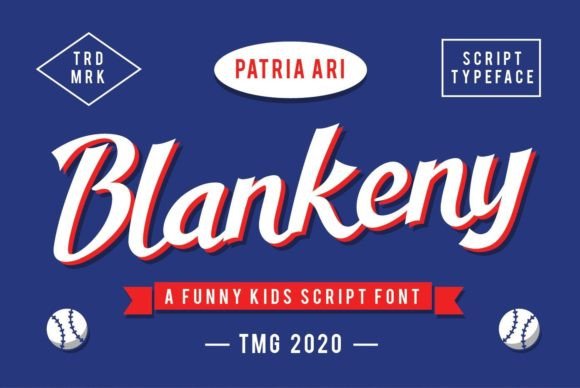
Introducing Blankeny Font: Elevate Your Designs with a Fun and Natural Handwritten Typeface
In the world of typography, fonts play a crucial role in bringing creative ideas to life. A well-chosen font can elevate a design, convey a message, and even evoke emotions. If you’re looking for a font that can add a touch of personality and whimsy to your designs, look no further than Blankeny Font. In this article, we’ll explore the features and benefits of Blankeny, a fun and natural handwritten font that’s incredibly versatile and perfect for a wide range of design projects.
What is Blankeny Font?
Blankeny Font is a modern, handwritten typeface that’s designed to bring a sense of fun and natural elegance to your designs. With its unique and distinctive character, Blankeny is perfect for creative projects that require a personal touch. Whether you’re working on a branding project, a website, or a marketing campaign, Blankeny Font is sure to make your designs stand out.
Benefits of Using Blankeny Font
So, what makes Blankeny Font so special? Here are just a few benefits of using this amazing typeface:
- Incredibly Versatile: Blankeny Font is designed to fit a wide range of designs, from elegant and sophisticated to playful and fun. Whether you’re working on a serious business project or a creative side project, Blankeny is the perfect choice.
- Easy to Read: Despite its handwritten nature, Blankeny Font is incredibly easy to read, making it perfect for body text, headings, and titles.
- Unique and Distinctive: Blankeny Font has a unique and distinctive character that sets it apart from other fonts. Use it to add a touch of personality to your designs and make them stand out.
- Highly Legible: Blankeny Font is designed to be highly legible, even at small sizes. This makes it perfect for use in a variety of design applications, from business cards to billboards.
Design Uses for Blankeny Font
So, what can you use Blankeny Font for? The possibilities are endless! Here are just a few ideas to get you started:
- Branding and Identity: Use Blankeny Font to create a unique and memorable brand identity that sets your business apart.
- Web Design: Add a touch of personality to your website with Blankeny Font, perfect for headings, titles, and body text.
- Marketing and Advertising: Use Blankeny Font to create eye-catching marketing materials, from brochures to billboards.
- Packaging Design: Add a personal touch to your product packaging with Blankeny Font, perfect for labels, tags, and more.
Pairing Blankeny Font with Other Fonts
One of the best things about Blankeny Font is its versatility. It can be paired with a wide range of other fonts to create a unique and harmonious design. Here are a few suggestions for pairing Blankeny Font with other fonts:
- Serif Fonts: Pair Blankeny Font with a classic serif font, such as Times New Roman or Garamond, for a sophisticated and elegant look.
- Sans-Serif Fonts: Combine Blankeny Font with a modern sans-serif font, such as Helvetica or Arial, for a clean and contemporary look.
- Script Fonts: Pair Blankeny Font with another script font, such as Pacifico or Great Vibes, for a playful and whimsical design.
Tips and Tricks for Using Blankeny Font
Here are a few tips and tricks for getting the most out of Blankeny Font:
- Experiment with Font Sizes: Don’t be afraid to experiment with different font sizes to create visual interest and hierarchy in your design.
- Use Font Colors: Use different font colors to add contrast and emphasis to your design.
- Add Texture and Patterns: Add texture and patterns to your design to give it a more organic and handmade feel.
In conclusion, Blankeny Font is a fun and natural handwritten font that’s perfect for creative projects that require a personal touch. With its unique and distinctive character, Blankeny Font is sure to elevate your designs to the highest levels. Whether you’re working on a branding project, a website, or a marketing campaign, Blankeny Font is the perfect choice. So why wait? Add Blankeny Font to your favorite creative ideas and watch them come alive!